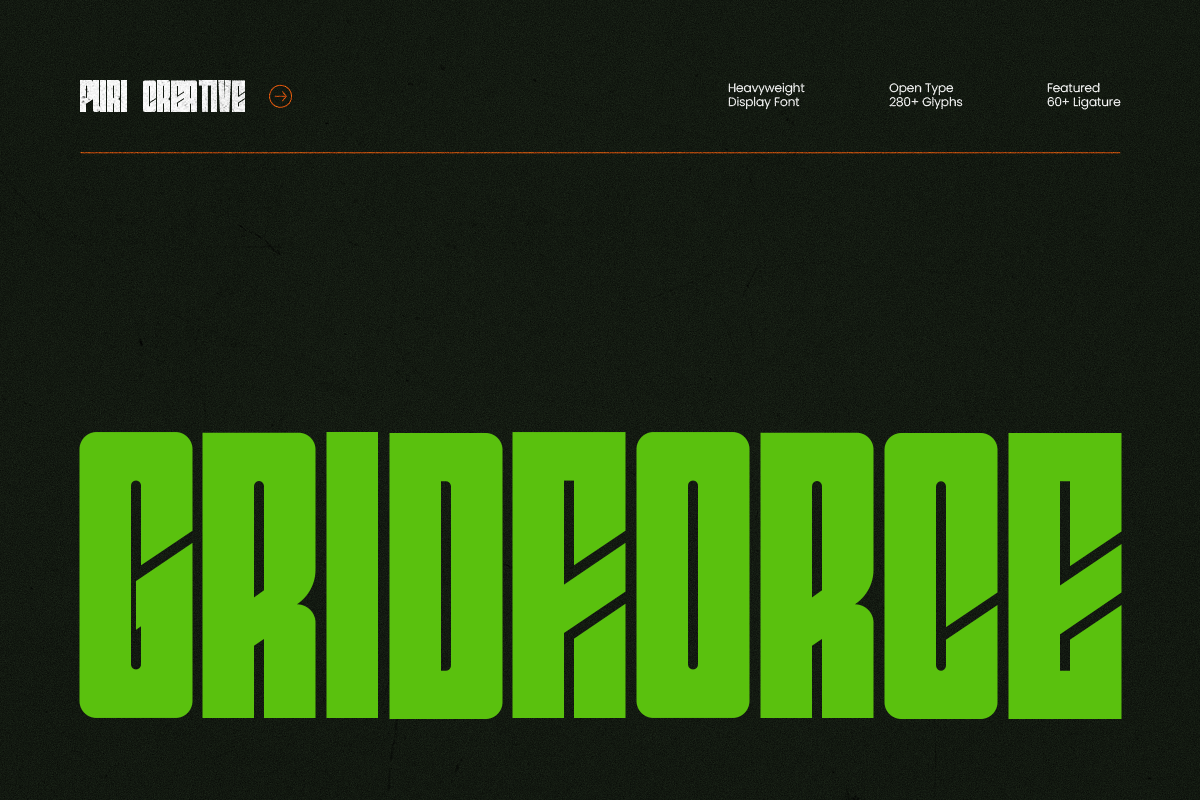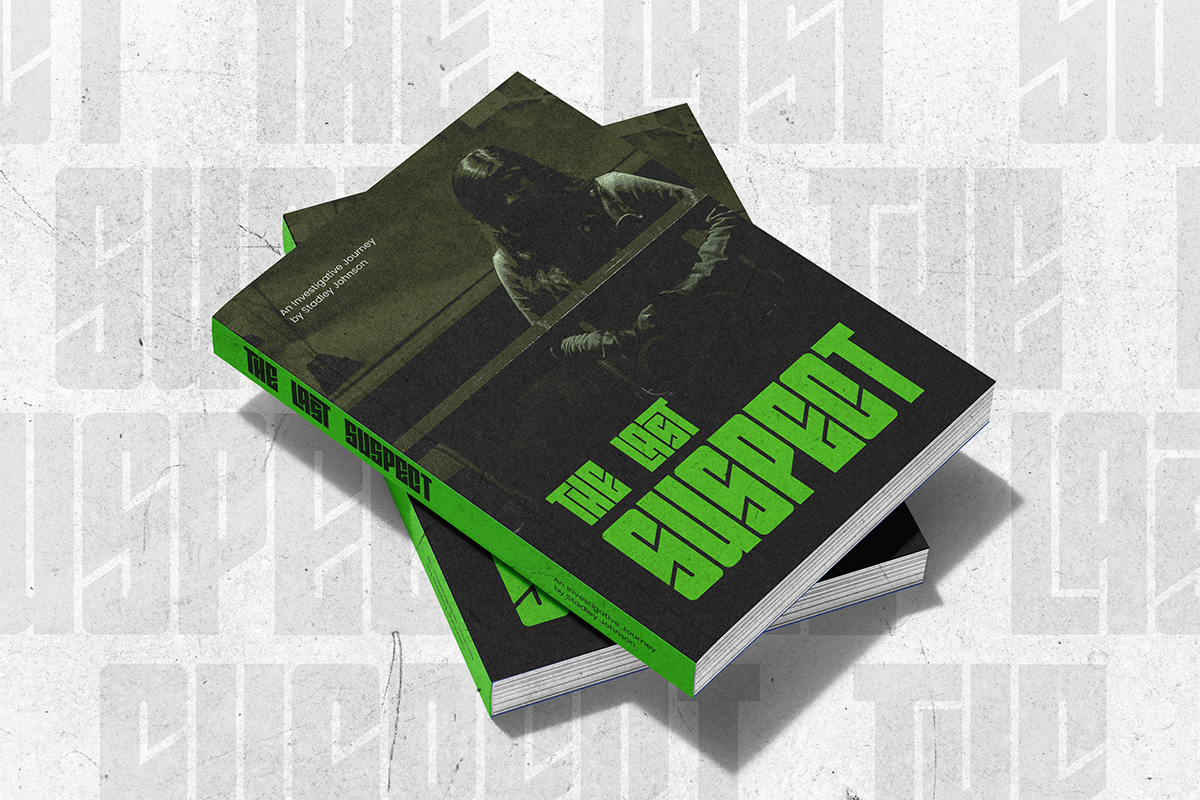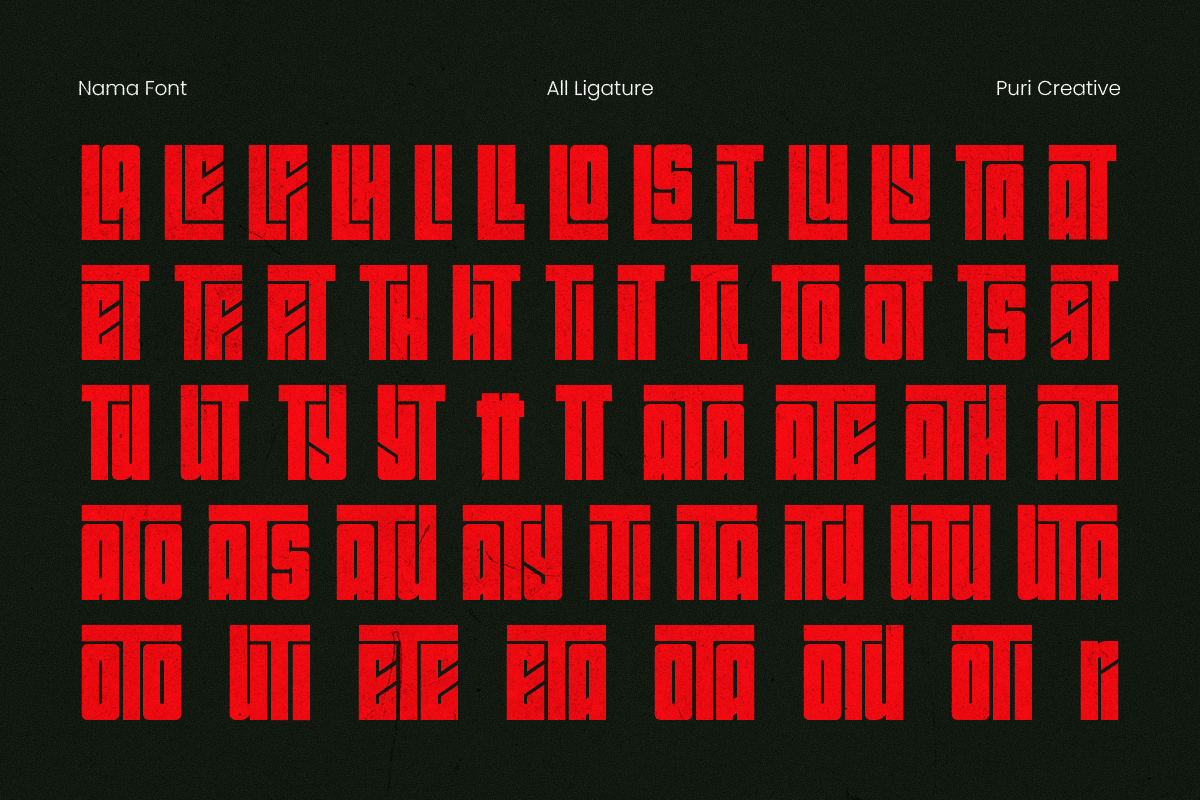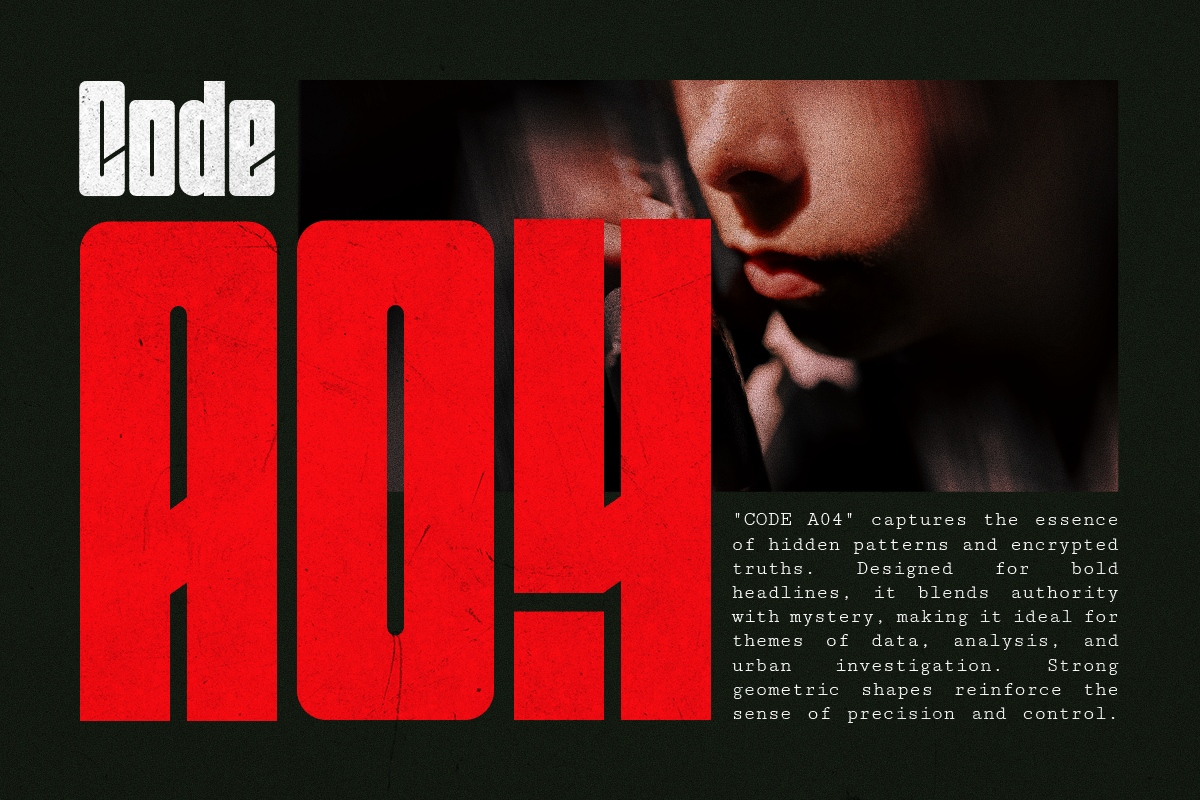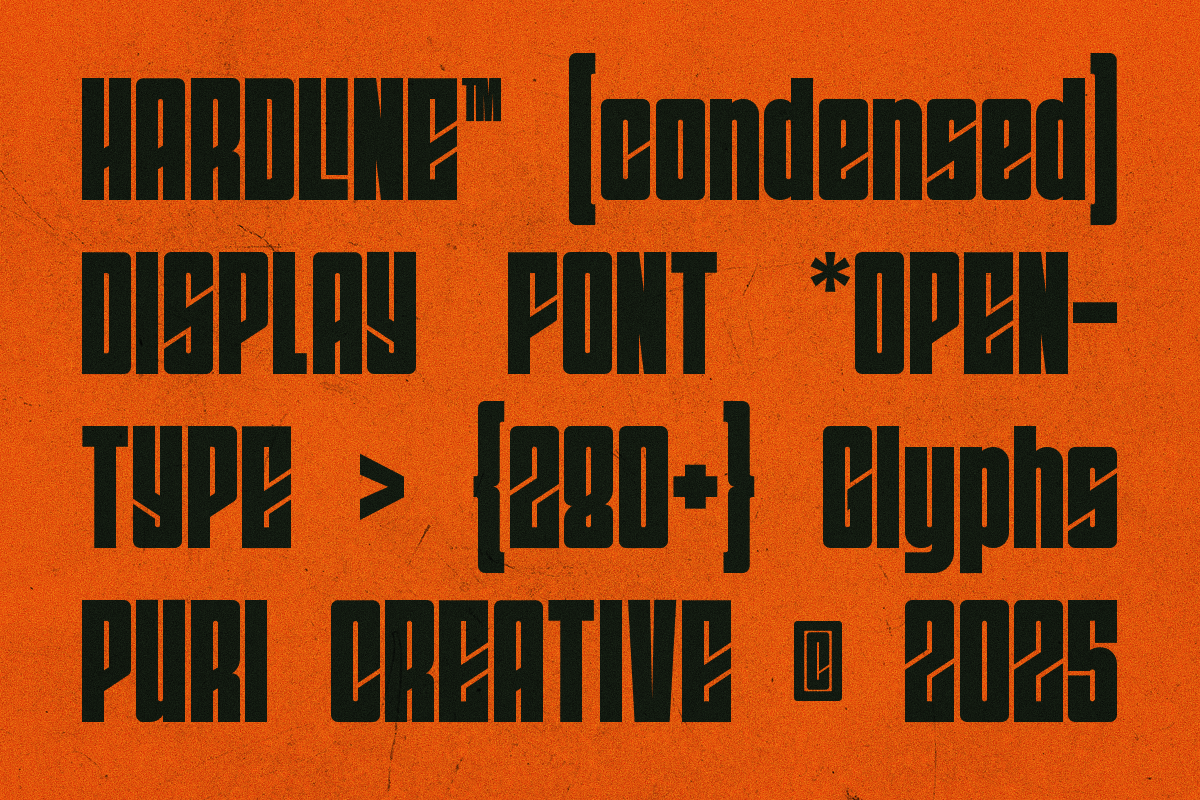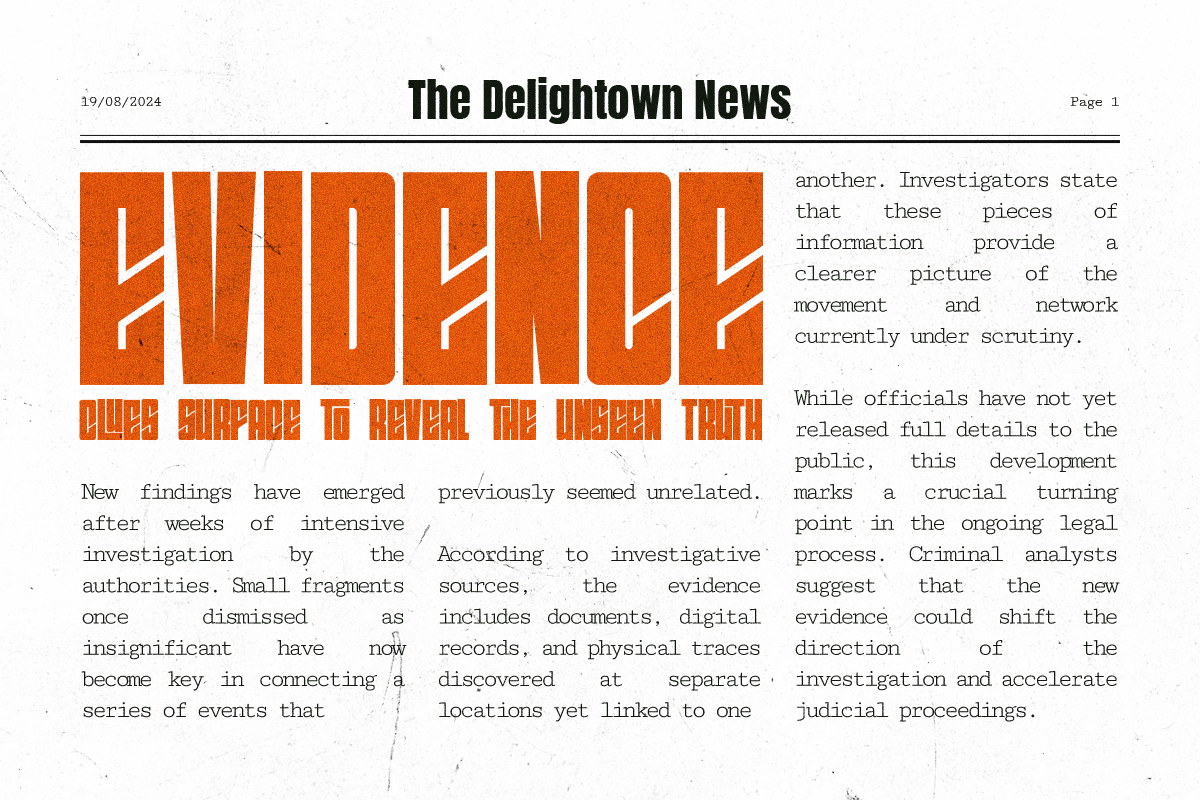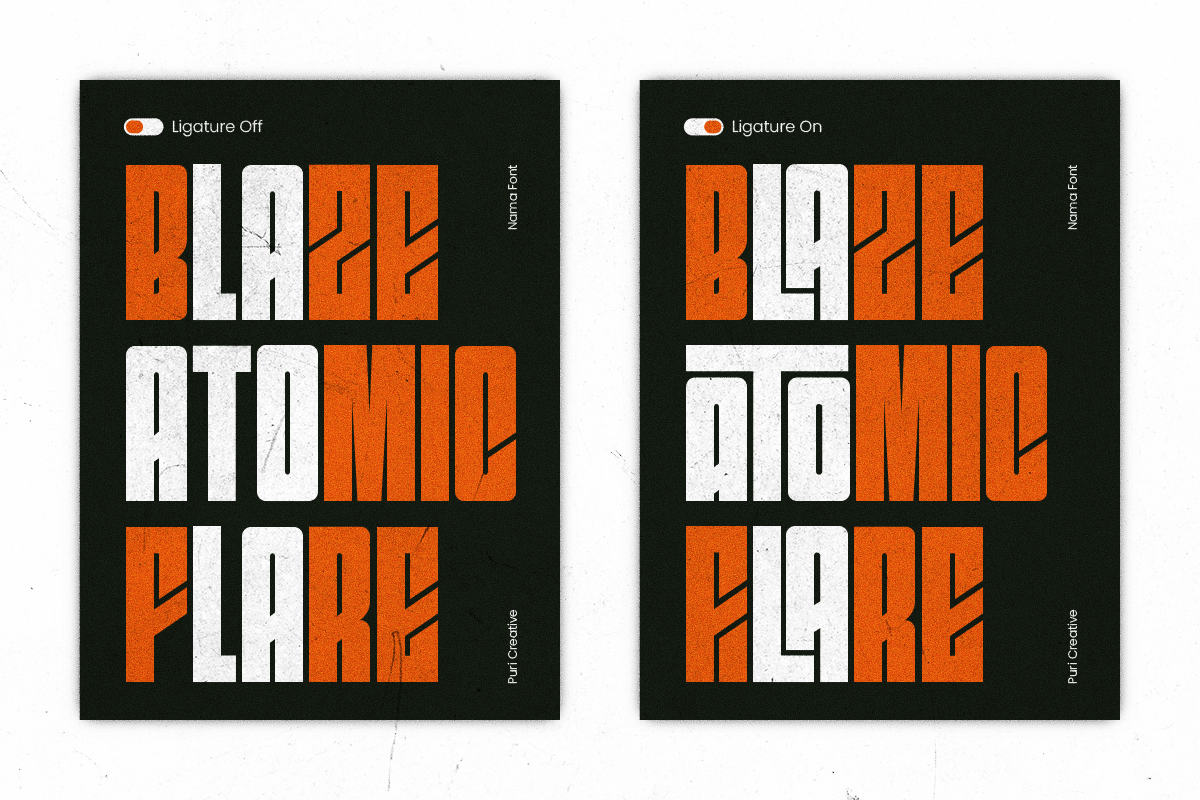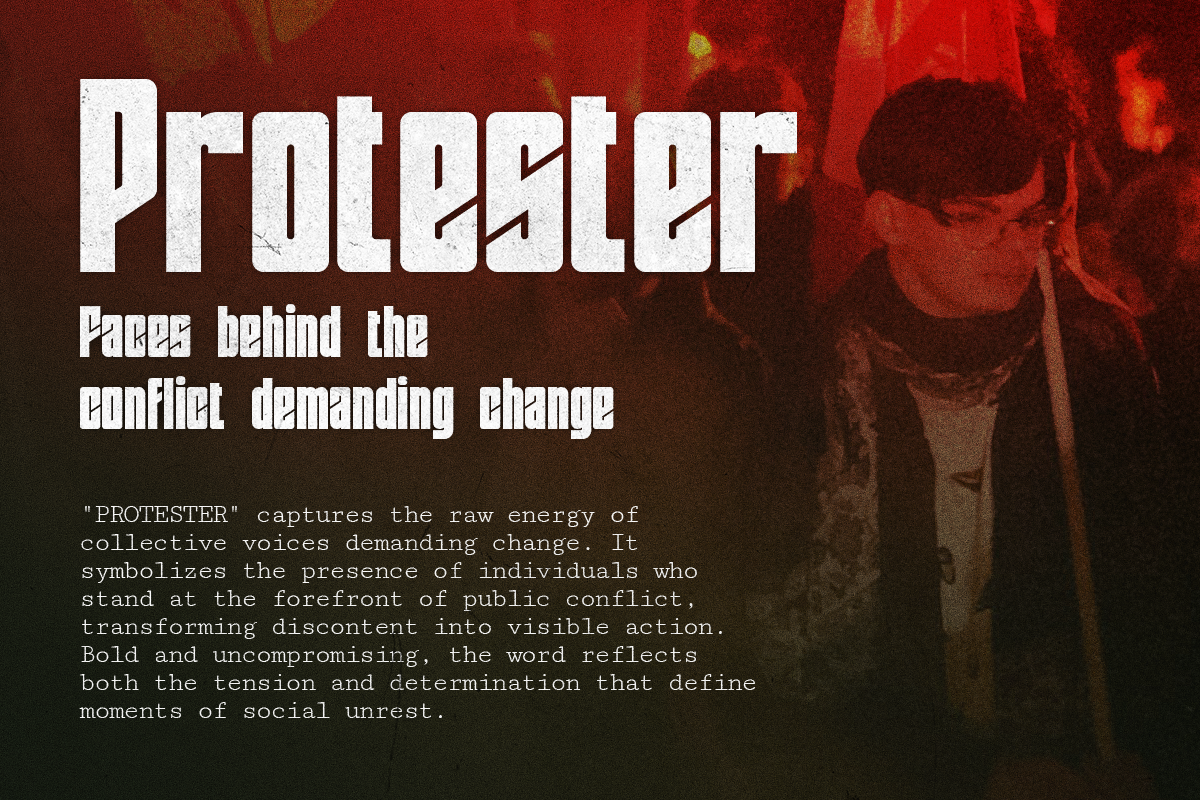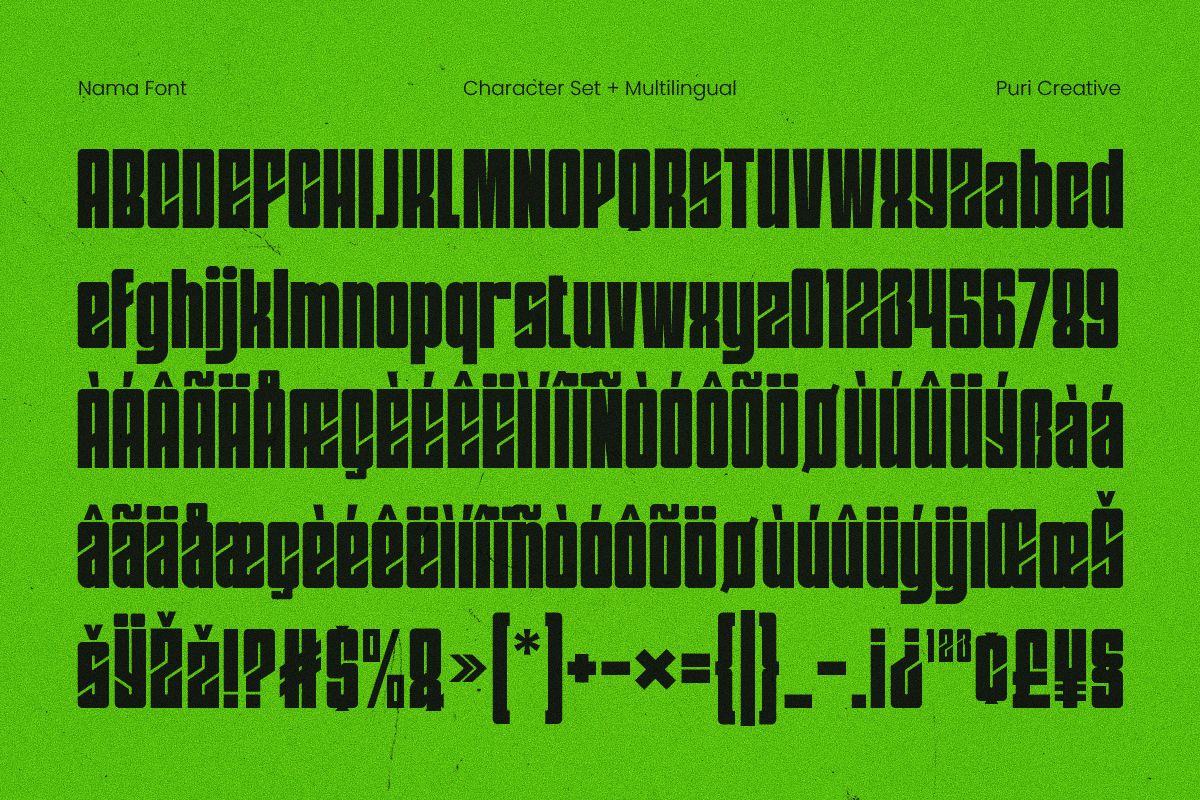
Gridforce - Heavyweight Display Font
Introducing Gridforce — A Heavyweight Display Typeface Built for Power and Impact
Gridforce is a bold heavyweight display typeface designed to embody strength, structure, and futuristic energy—all essential elements for impactful visual design. The typeface features wide, geometric forms with sharp angles and tight construction, making it perfect for commanding headlines, bold branding, and modern poster design.
The design emphasizes uppercase letters with a strong industrial feel, while its unique cuts and diagonal details create a sense of motion and precision. Each glyph in Gridforce is crafted with purpose—featuring squared edges, solid proportions, and a compact look to maintain a powerful, striking aesthetic.
With alternate ligatures providing stylistic variation, Gridforce allows designers to experiment and create distinctive titles, logos, and identity systems. Whether you're working on gaming visuals, urban streetwear, or futuristic campaigns, Gridforce delivers authority, clarity, and a high-impact presence.